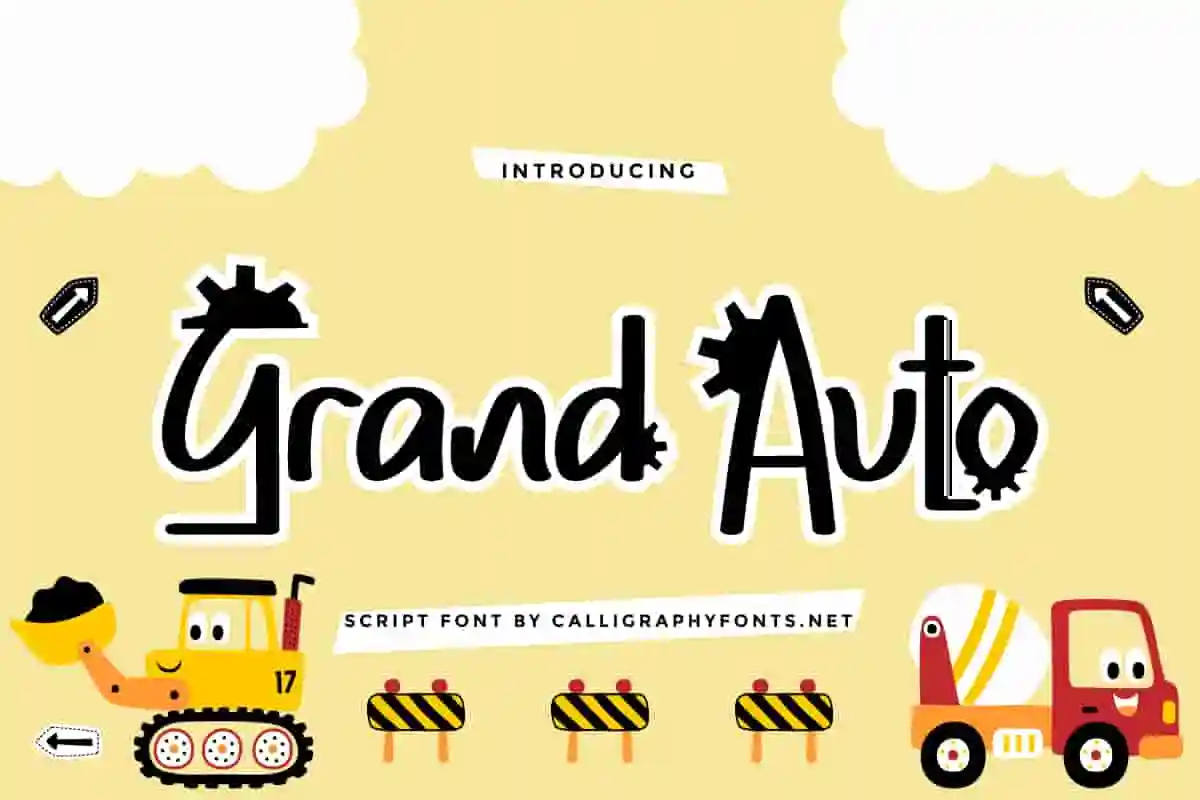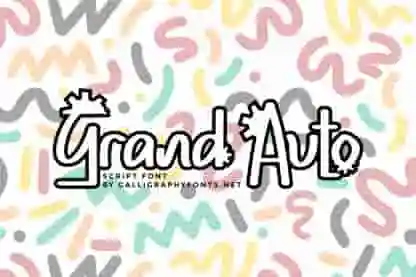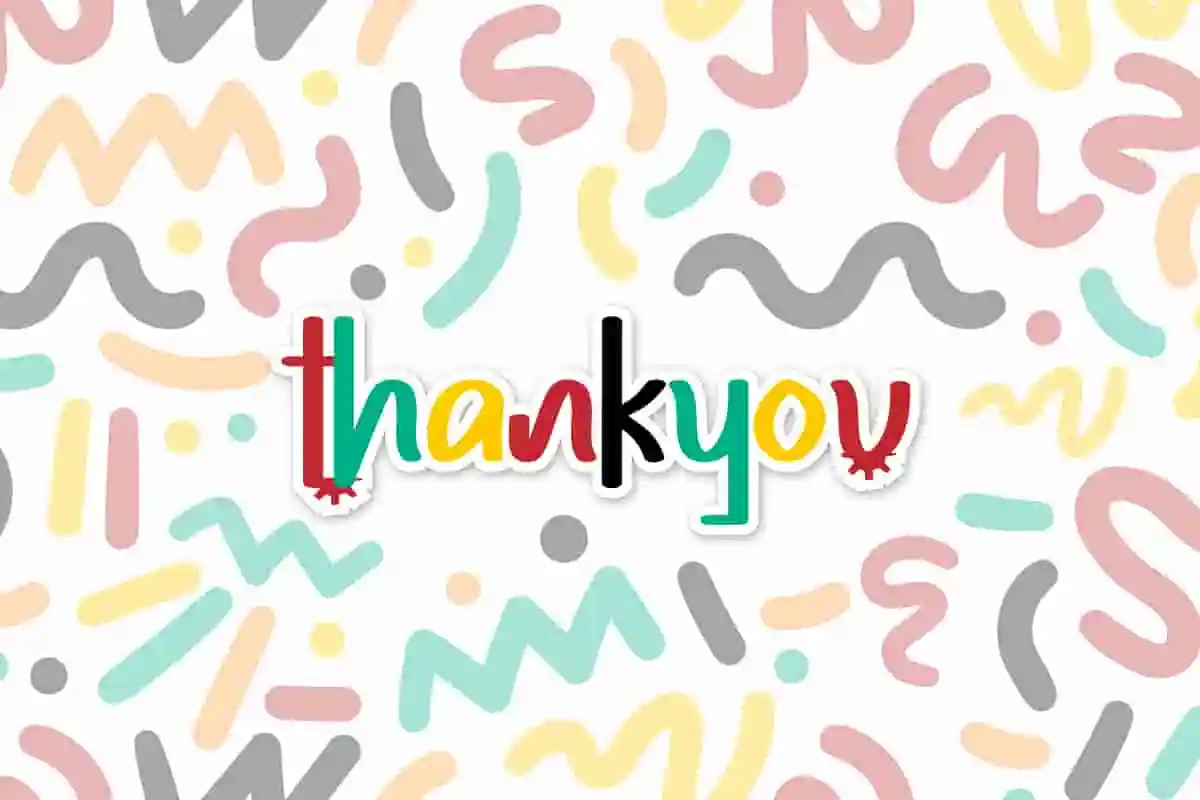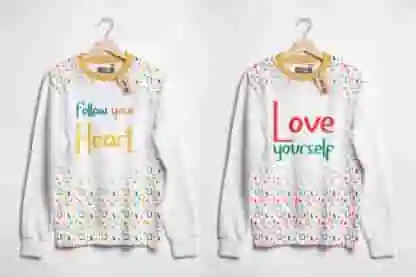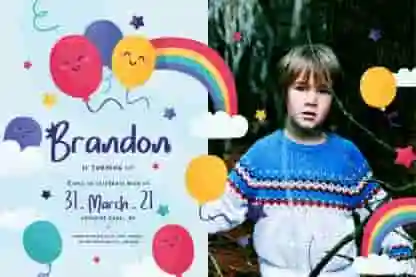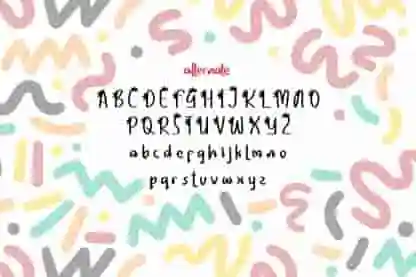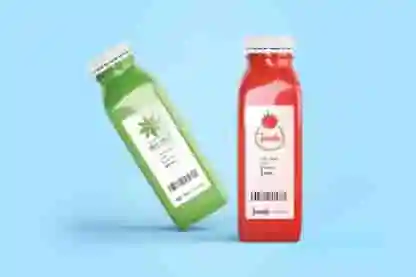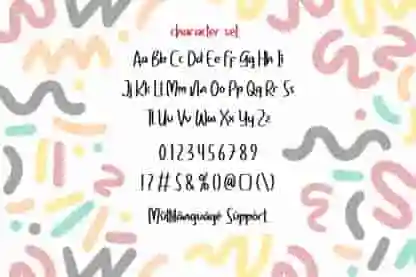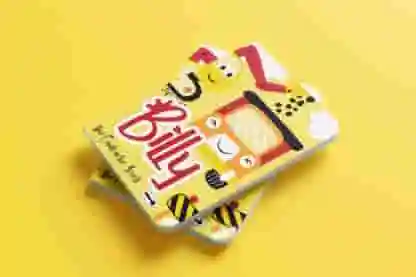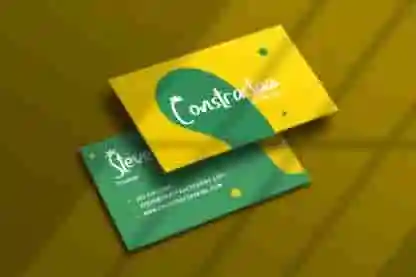
Grand Auto Display Font
Grand Auto Font is funny unique handwriting font by CalligraphyFonts.net. It has great characters that will be awesome for branding, poster, invitation, flyer etc
Grand Auto Font is a fun Handwriting font with children and cartoon theme style. The font will be awesome for brands, packaging, invitation, games. etc. Grand Auto Font will suit many industries and categories related to kids, humor, family etc. It will work well for books, packaging, toys, homewares etc
Introducing Grand Auto Display Font, a high-impact typeface that brings the nostalgia of vintage motorsports, garage culture, and retro signage into the heart of your modern design. With bold lines, strong curves, and a hint of industrial grit, Grand Auto is built to turn heads and command attention.
Whether you’re crafting logos, packaging, posters, t-shirt designs, or social media graphics, this font delivers a statement. Its all-caps styling, balanced spacing, and distinct personality make it ideal for projects that need to be loud, bold, and unforgettable.
Rev up your designs with the Grand Auto Display Font – a bold, vintage-inspired typeface that captures the spirit of retro racing and industrial grit. Designed for creatives who want to make a statement, this font brings a powerful visual presence to any project.
Grand Auto Display Font was made with versatility in mind.